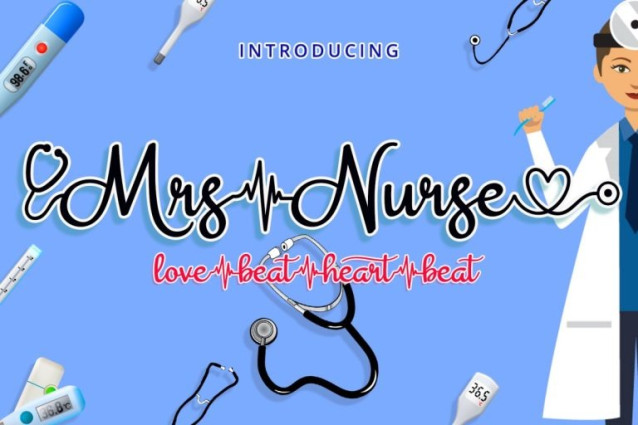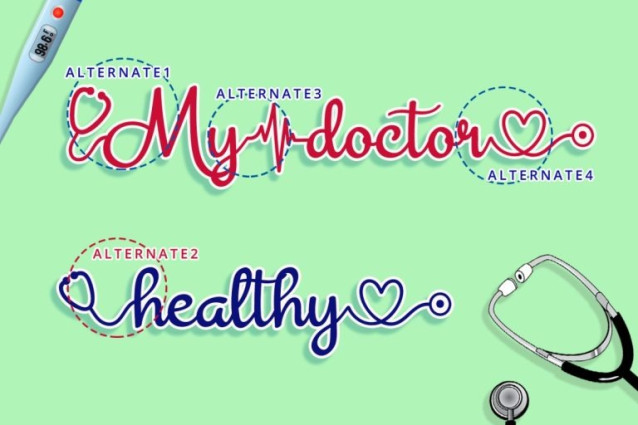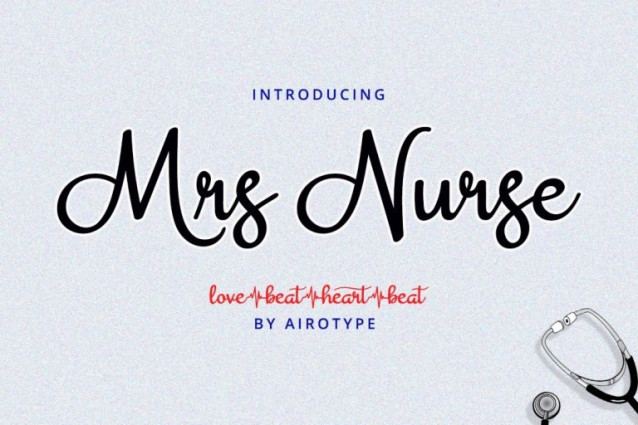
Mrs Nurse Script Font
Mrs Nurse Font is elegant handwritten font with modern feeling. This font is perfect for any crafting design, branding, and others.
Mrs Nurse has stethoscope and heartbeat swashes, so it’s match for healthcare theme design.